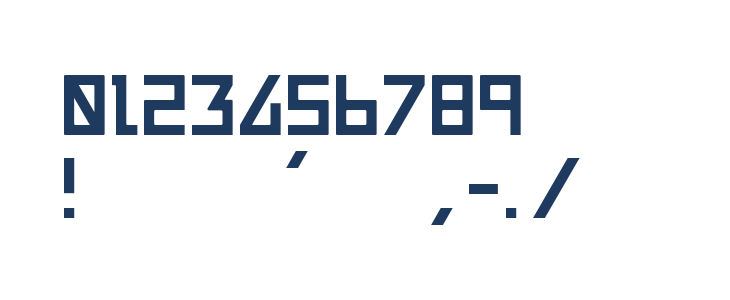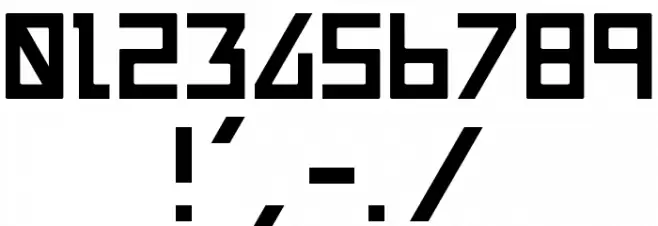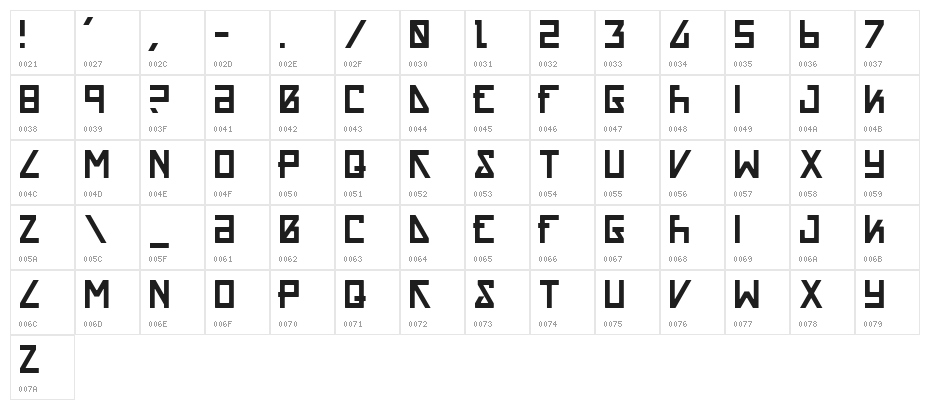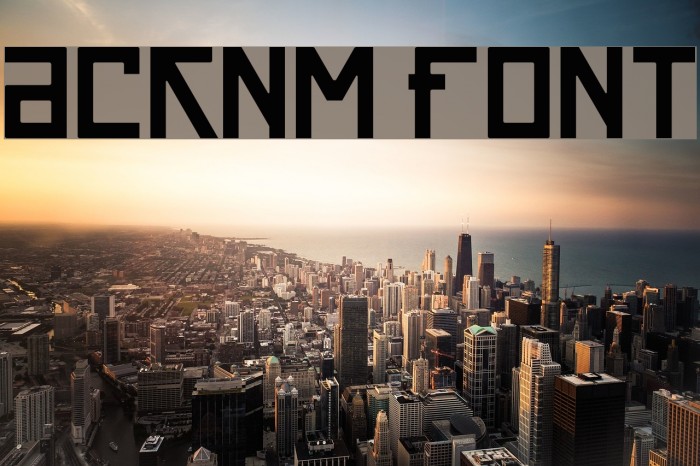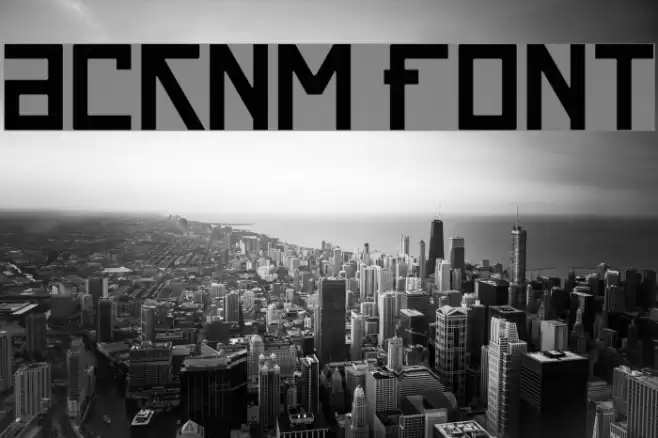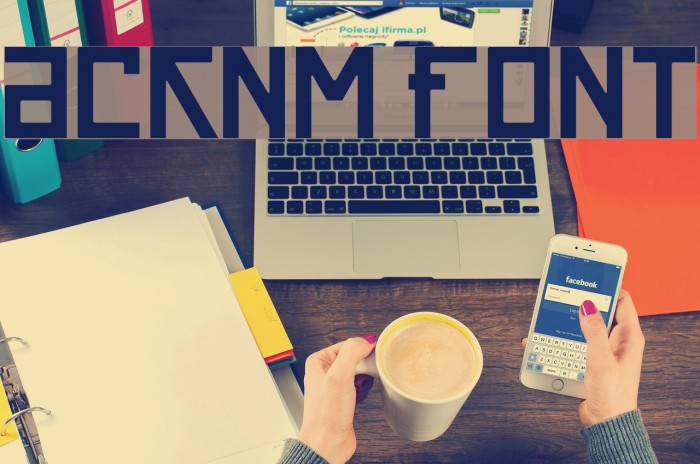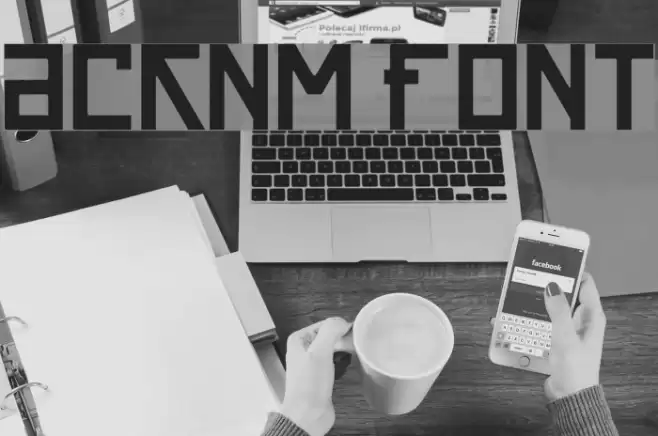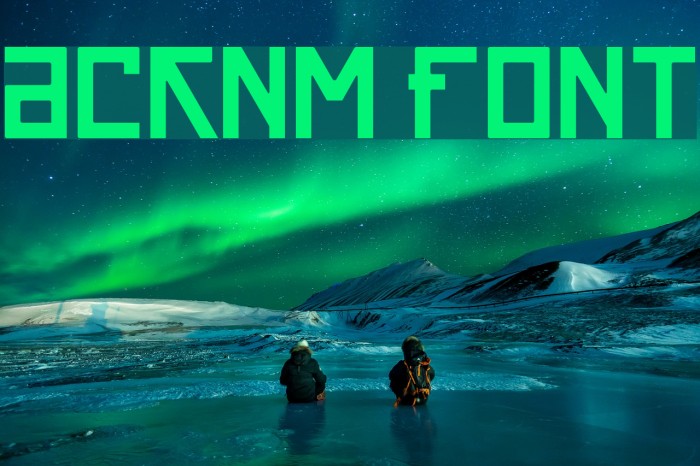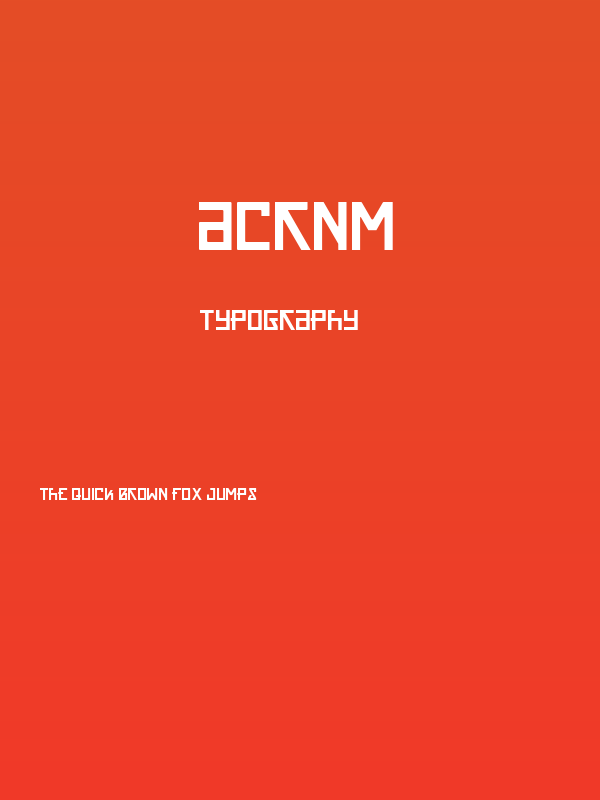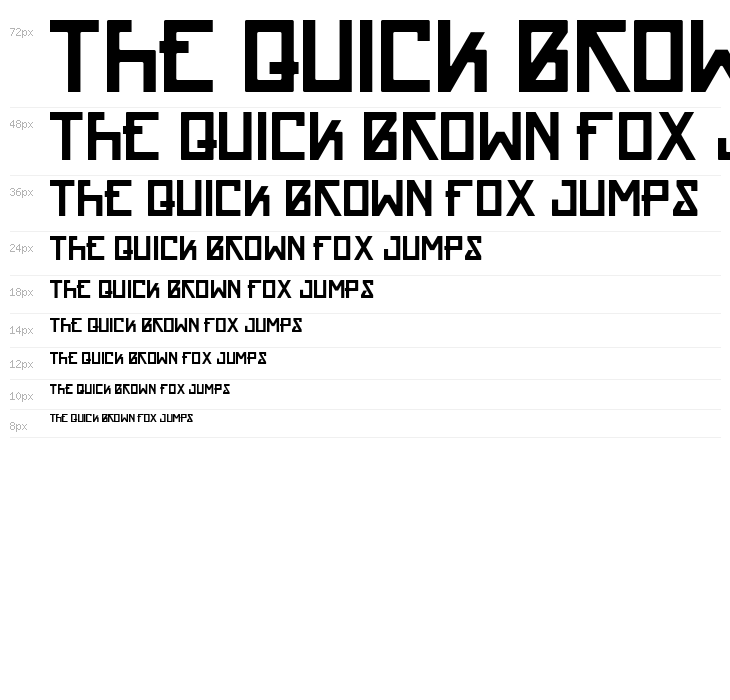
ACRNM Font
ACRNM Description
This font exhibits a bold and geometric style, characterized by sharp angles and a futuristic aesthetic. The uppercase letters are distinct with a blocky appearance, while the lowercase maintains a similar angular design. Numbers and special characters follow the same geometric pattern, ensuring consistency across all glyphs. The font's design is reminiscent of digital or sci-fi themes, making it suitable for modern and tech-oriented projects. Its strong visual impact is achieved through thick strokes and a uniform weight, providing a sense of stability and boldness.
| Proposed Projects | Ideal for tech branding, sci-fi posters, video game titles, and digital interfaces. |